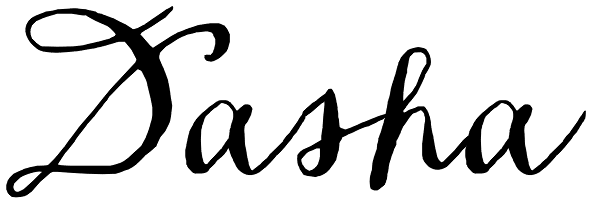
Dasha
Dasha is a vintage-inspired and hand-drawn font, with an alphabet that bounces naturally along a dancing baseline. Inside the font you'll find a host of Opentype features and over 1,000 alternate characters, including a full set of alternate capital...
Dasha